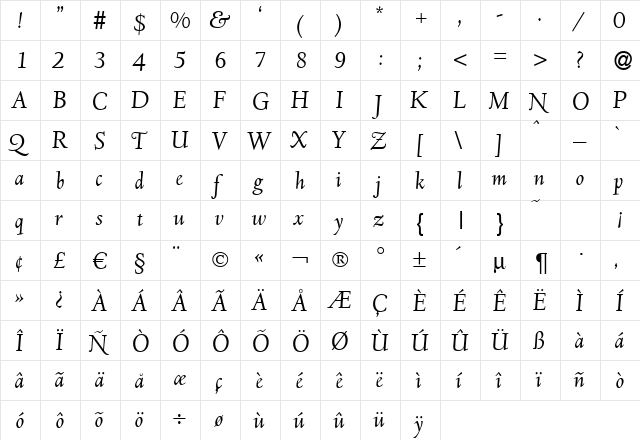
D690-Roman Italic Font Preview
D690-Roman Italic
Design Context for D690-Roman Typeface
D690-Roman offers clean, dependable letterforms without strong stylistic allegiance, making it a practical choice for designers who need flexibility. Its italic angle brings a sense of urgency and motion to the letterforms.
Pro Tip: Try D690-Roman for annotation and caption copy alongside an upright companion — the contrast in angle creates a dynamic but ordered typographic system.